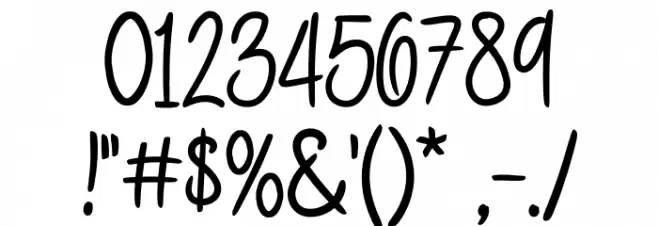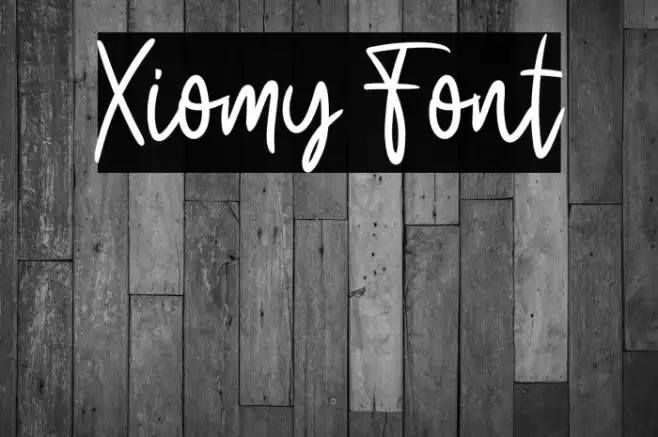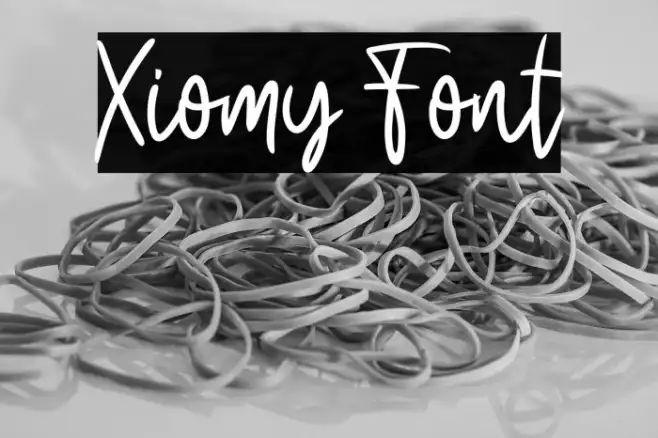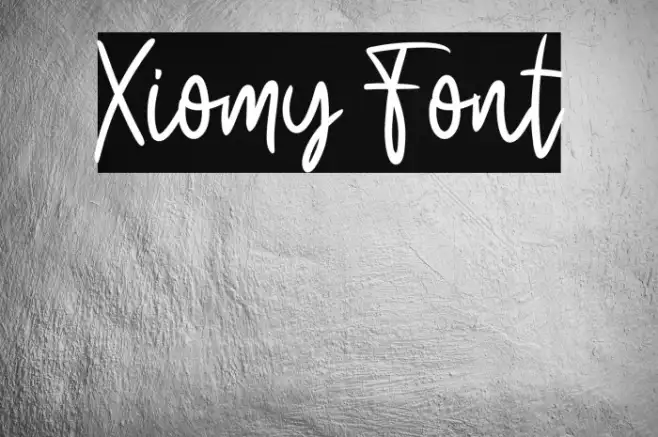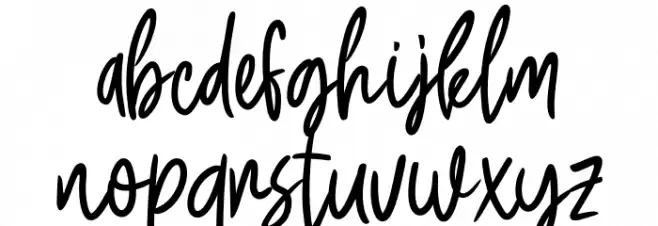
Xiomy Font
Xiomy Description
This font exudes a lively and energetic handwritten style, characterized by its fluid and dynamic strokes. The letters are slightly slanted, giving a sense of movement and spontaneity. The uppercase and lowercase letters maintain a consistent flow, with rounded edges and a casual, informal appearance. The numbers and special characters follow the same playful and approachable design, making the font versatile for various creative projects. Its overall look is friendly and inviting, perfect for adding a personal touch to any design.
A lively, handwritten font with fluid, dynamic strokes and a casual, informal style.
- Proposed Projects: Ideal for greeting cards, invitations, personal branding, social media graphics, and creative posters.
- Category: Handwritten
- Overall Style: Casual, Playful
- Use Case: Headlines, Logos, Invitations